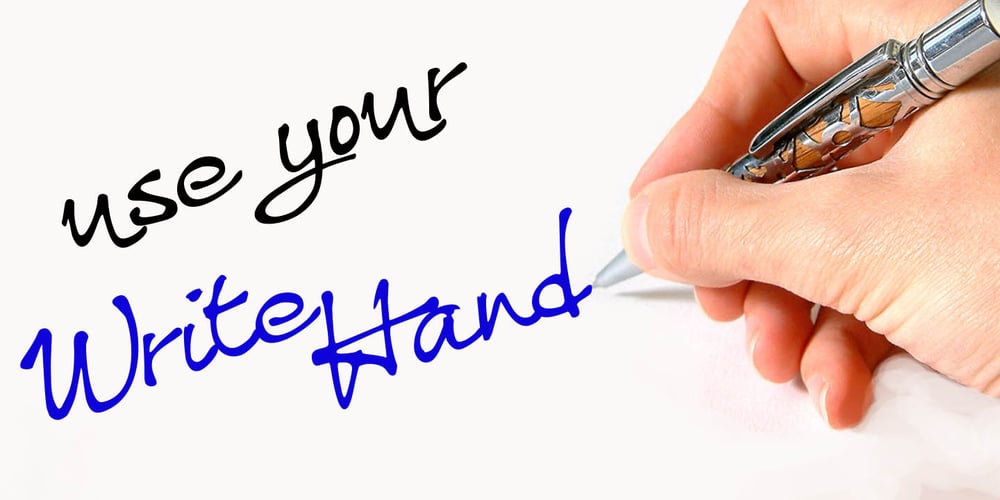
WriteHand
WriteHand font
WriteHand Font Family was designed by Anton Scholtz and published by Scholtz Fonts. WriteHand contains 1 styles and family package options. WriteHand is a light-hearted, fluid, freeform script font. It is one of Anton Scholtz’s contemporary designs. Based on actual handwriting, the font contrasts a strong, artistic nature with a feminine sensitivity. WriteHand successfully combines exuberant capitals with devil-may-care swashes, and toned down lower case characters to make an extremely readable handwritten font. The font is most versatile and has a number of uses, among which are contemporary invitations, greeting cards, magazine pages, adverts, cosmetic packaging and promotions, clothing swing tags and promotions, and book covers. It has been carefully letterspaced and kerned. It contains a full character set: all upper and lower case characters, punctuation, numerals and accented characters are present.